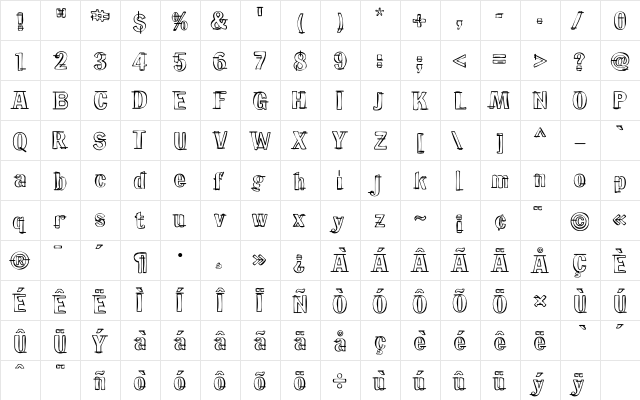
BigFella Regular
Design Context for BigFella Typeface
BigFella is a composed and adaptable typeface that performs quietly and consistently across a wide range of design contexts.